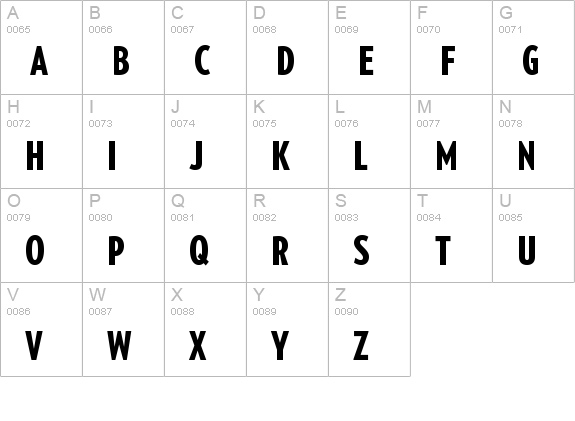
Verlag Compressed Black is a maximum-weight, dramatic, condensed-width variant in the Verlag typeface family \xE2\x80\x94 well suited to maximum-impact headlines, posters, and packaging.
Verlag Compressed Black font is a modern and sophisticated typeface that exudes power and elegance. Its bold and condensed design makes it perfect for headlines, titles, and branding projects that require a strong and impactful presence. With its sharp lines and distinctive style, Verlag Compressed Black commands attention and demands to be noticed. What sets Verlag Compressed Black font apart is not just its striking appearance, but also the fact that it is available for free download at FontsMarket.com. This means that you can easily access this high-quality font without any cost, making it a valuable addition to your design toolkit. Whether you're working on a print or digital project, Verlag Compressed Black font is sure to make a bold statement and elevate your work to the next level.